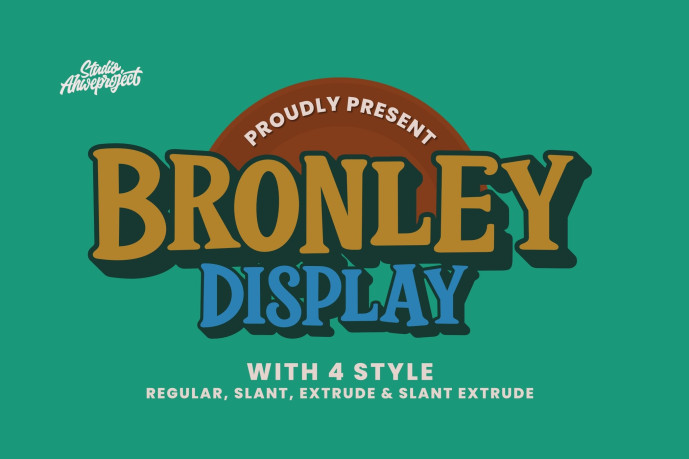
Bronley Serif Font
Designer: ahweproject
Bronley Display — Bold Retro Serif (4 Styles + Easy 3D Layering) Need a headline font that instantly stands out? Bronley Display brings strong retro character in Regular, Slant, Extrude, Slant Extrude. Combine Regular/Slant over Extrude for solid 3D titles—perfect for logos, event posters, sports merchandise, packaging, and YouTube thumbnails.
Features :
• Uppercase & lowercase
• Numbers and punctuation
• Multilingual
• Alternates